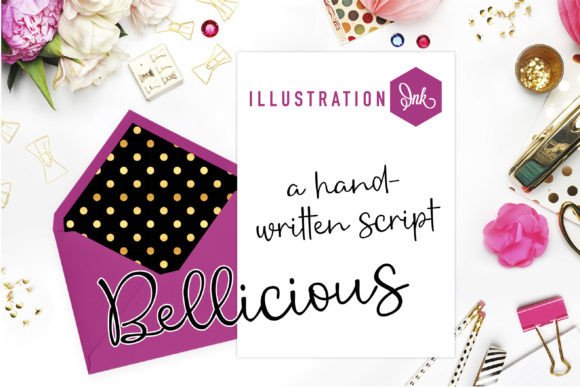
Looking for a font that exudes sweetness, playfulness, and a touch of cuteness? Look no further than Bellicious Font - the perfect script font for all your handwritten letter needs!
Created by the talented team at Illustration Ink, Bellicious Font boasts a delicious and adorable design, with each letter crafted to perfection with sweet curves and candy-like accents. Whether you're designing a bakery logo or a dessert menu, this font is sure to add a mouth-watering and playful touch to your project.
But Bellicious Font is more than just a pretty face - it's also highly functional and versatile. Its script style makes it easy to read, while its keyword "Font For Handwritten Letter" highlights its suitability for a variety of projects. Plus, with its extensive character set and multiple weights, you can easily customize this font to suit your specific needs.
But don't just take our word for it - see for yourself how Bellicious Font can take your designs to the next level. Whether you're looking to add a touch of sweetness to your branding, or simply want a fun and playful font for your personal projects, Bellicious Font has got you covered.